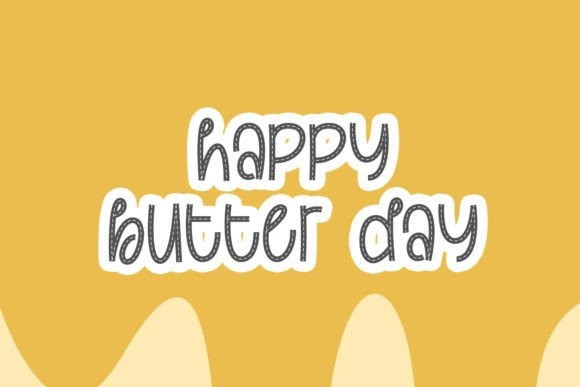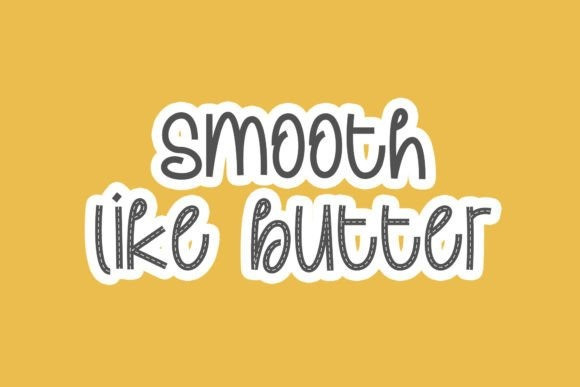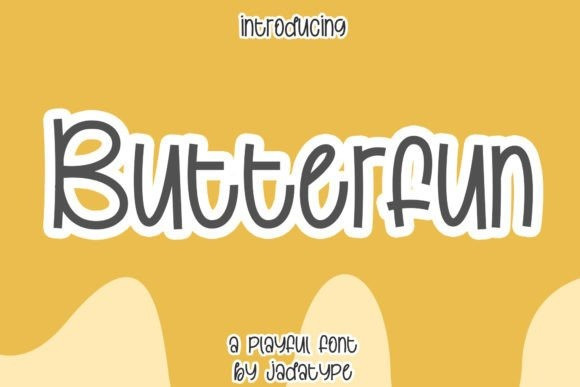
Butterfun Font
Butterfun Font is a handwritten font with playful lines. It is suitable for your branding needs, crafts, clothing designs, social media, and others.